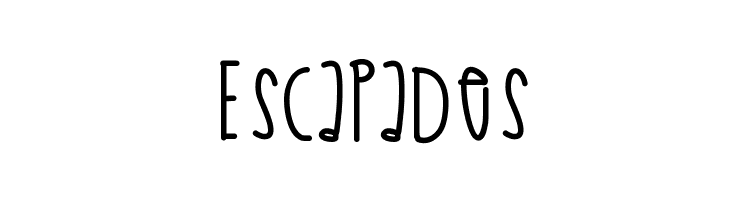
( Fonts by Vladimir Nikolic )
A bold, decorative font with intricate geometric patterns and strong outlines.
( Fonts by Display Studio )
A bold, angular font with a rugged, industrial design.
A bold, brush-like font with an energetic and artistic style.
( Fonts by tyPoland Lukasz Dziedzic )
A sleek, thin italic font with a modern and elegant design.
A playful, casual handwritten font with flowing strokes and a friendly appearance.
( Fonts by www.aka-acid.com )
A playful, hand-drawn font featuring cartoon animal faces and simple shapes.
A bold, italic, futuristic font with geometric shapes and a double-layered outline.